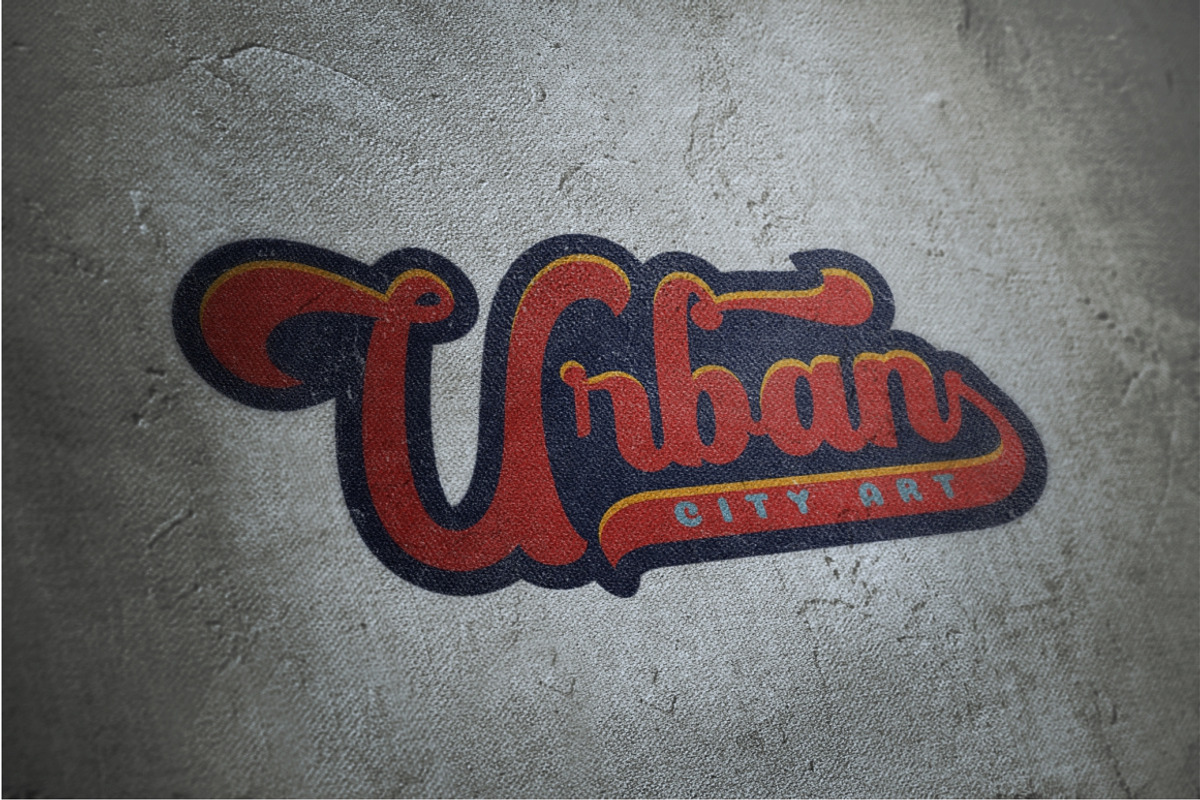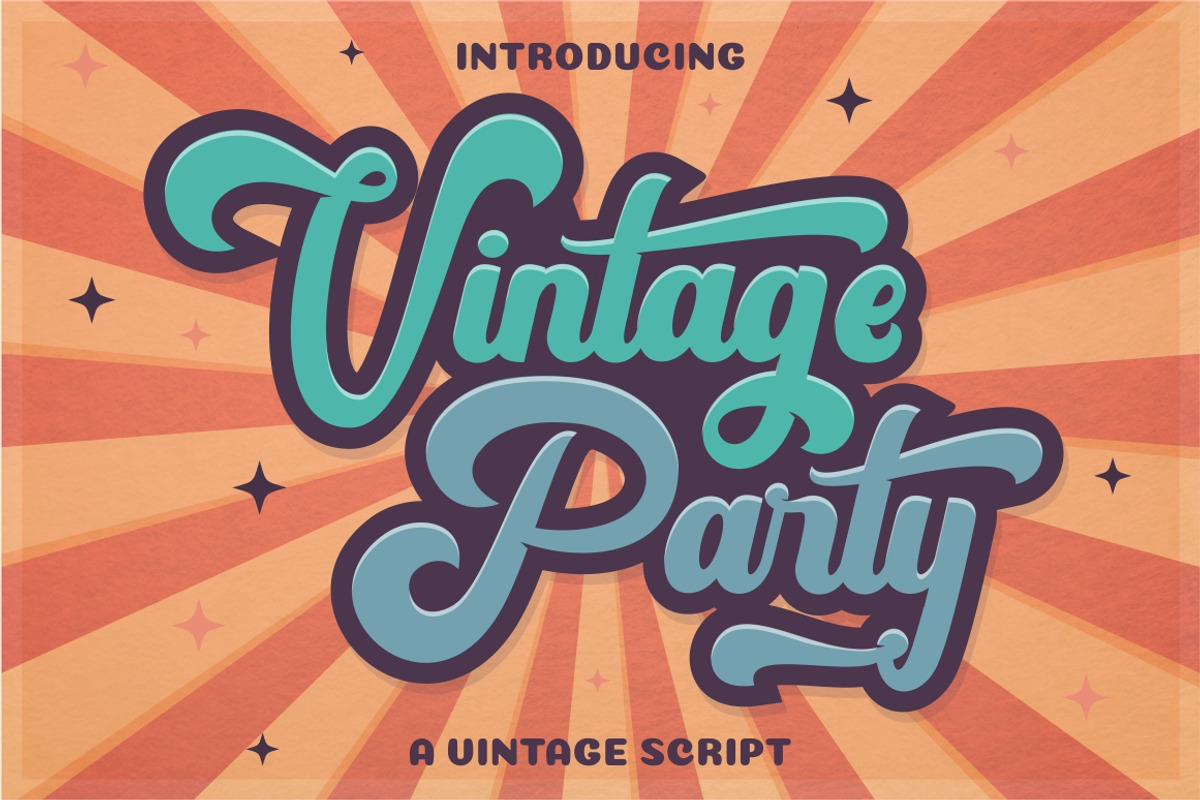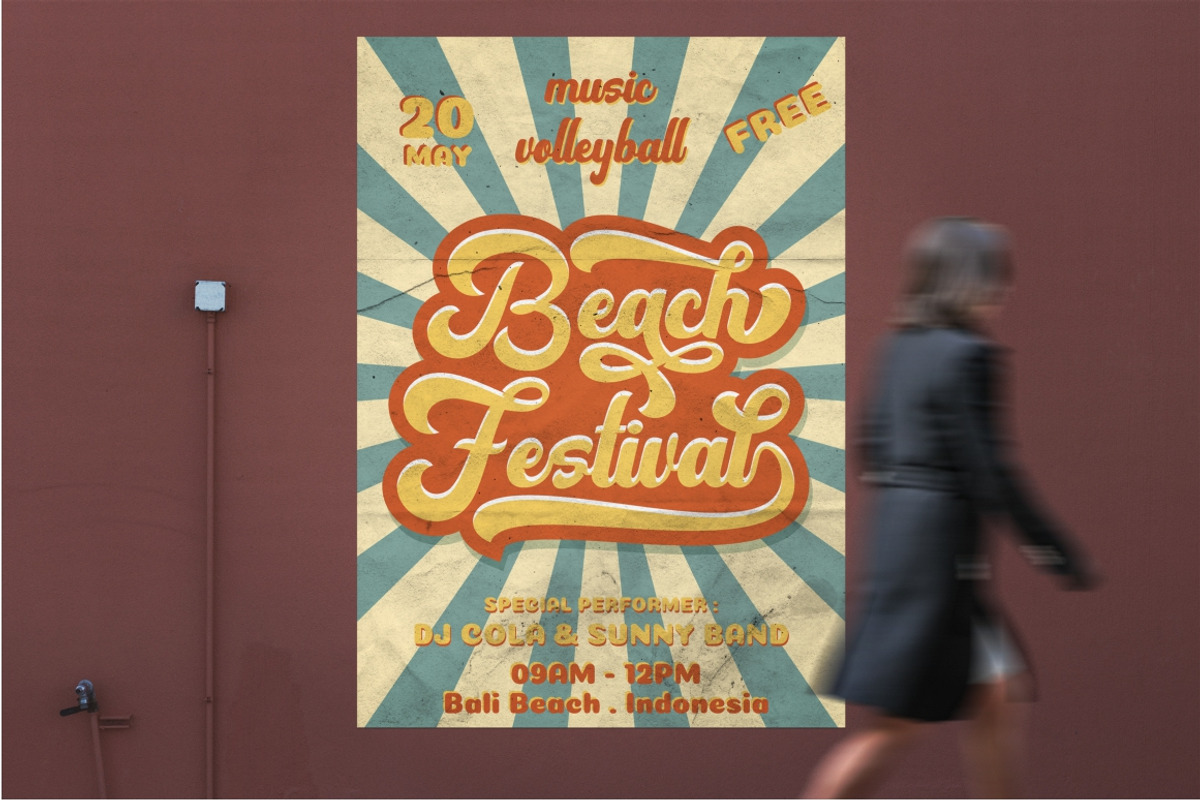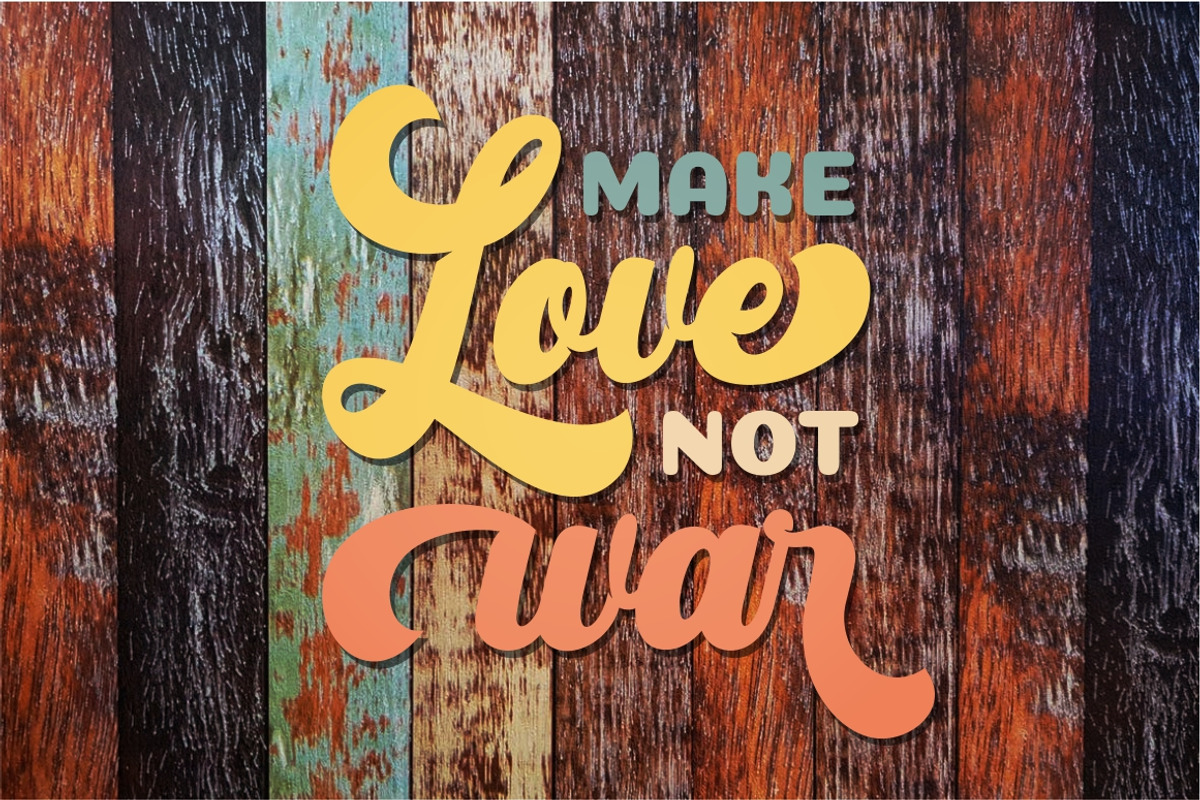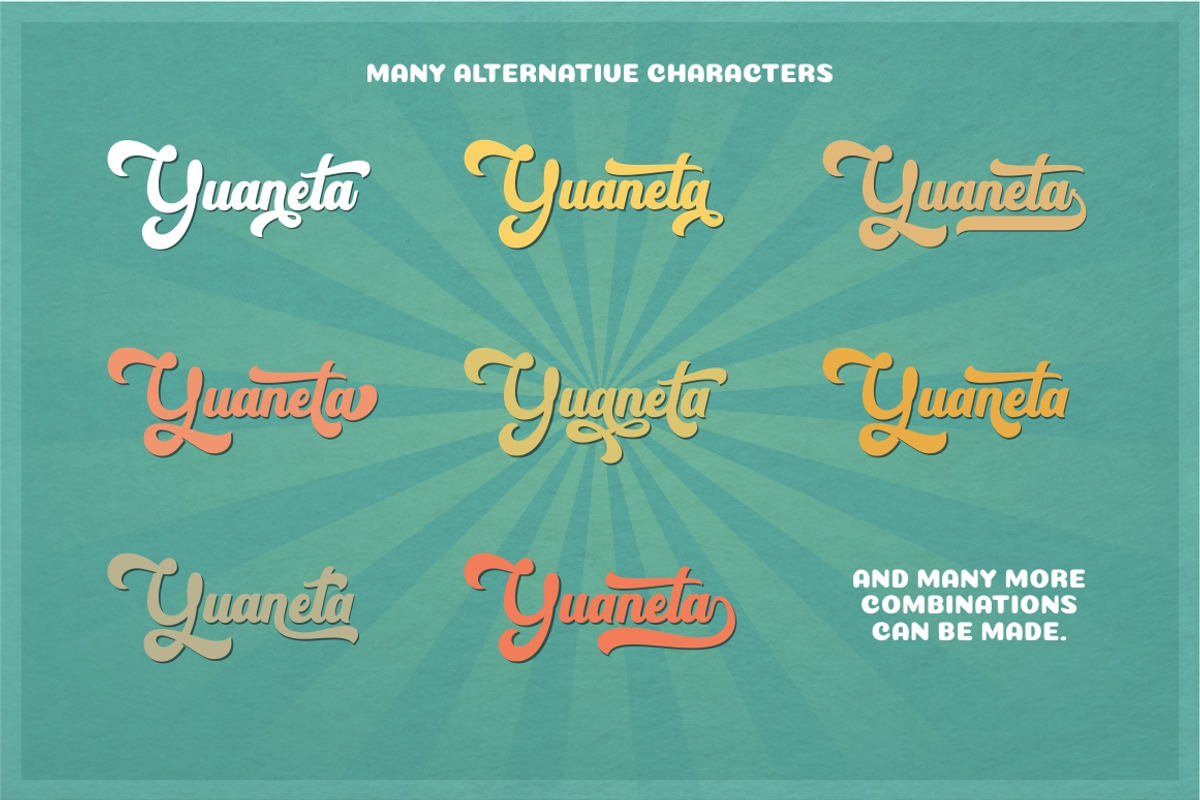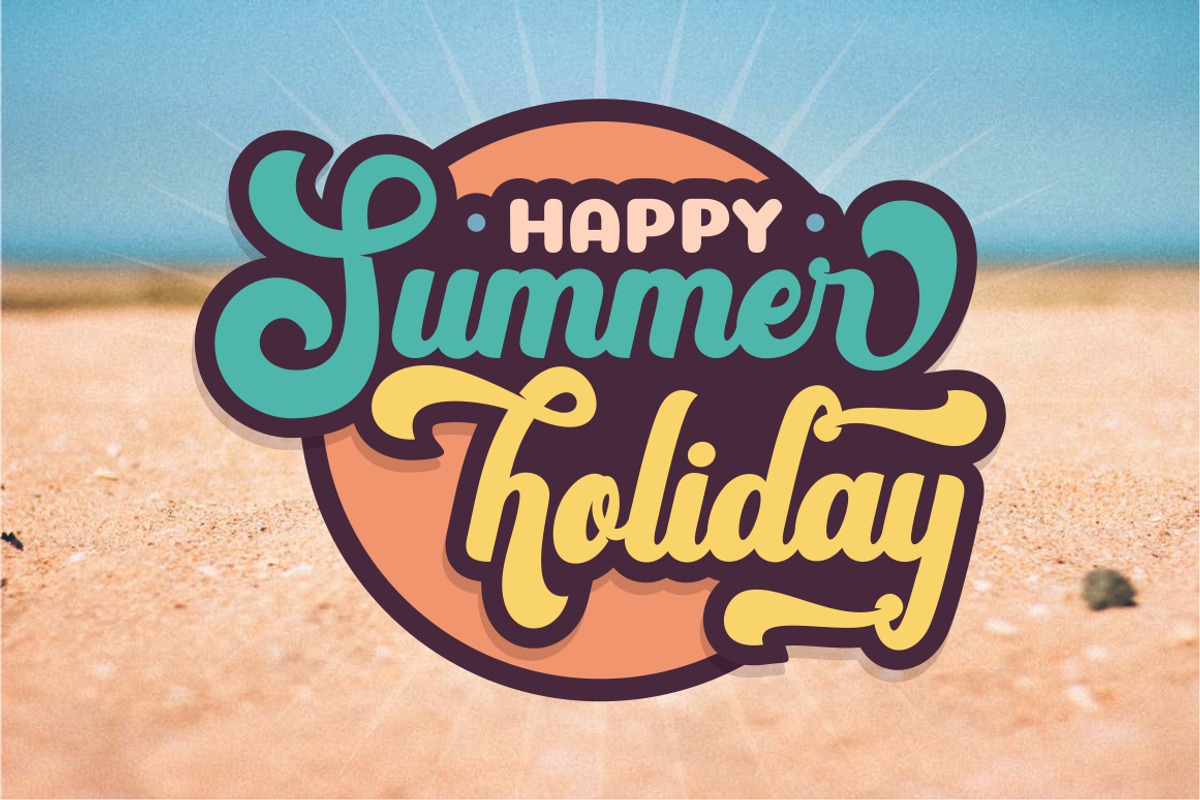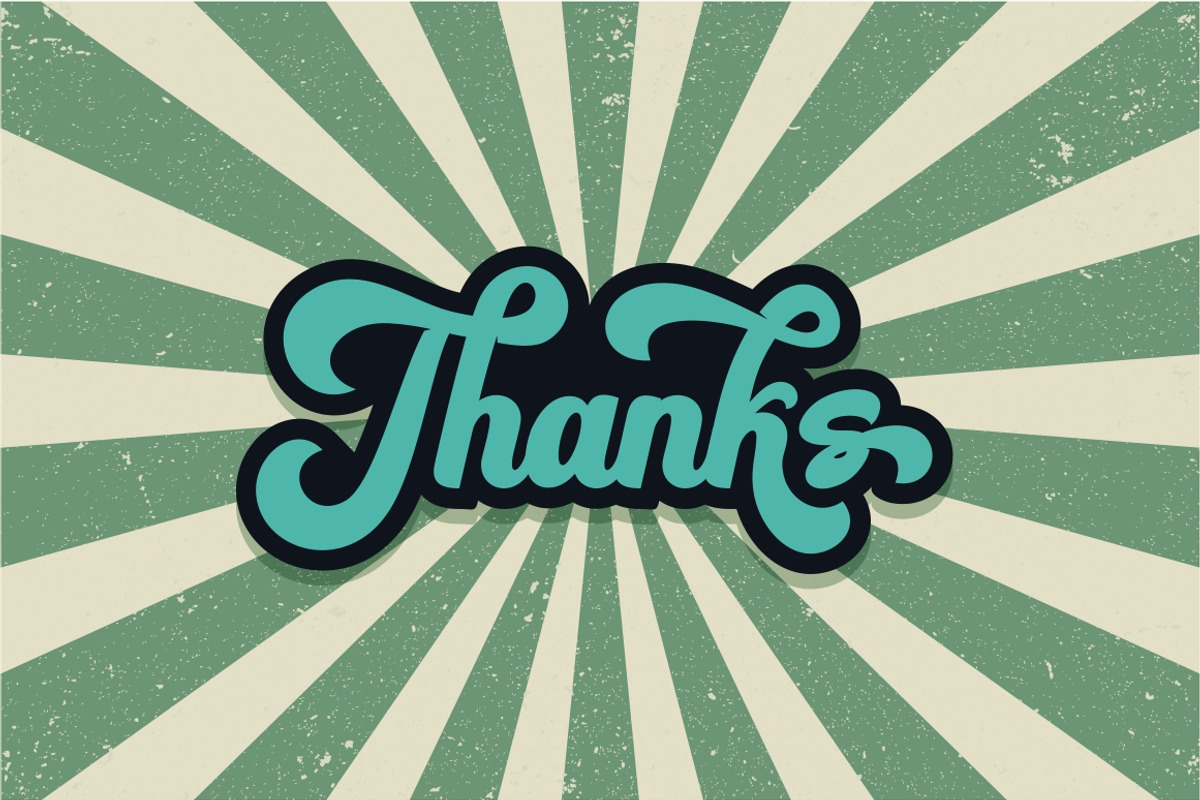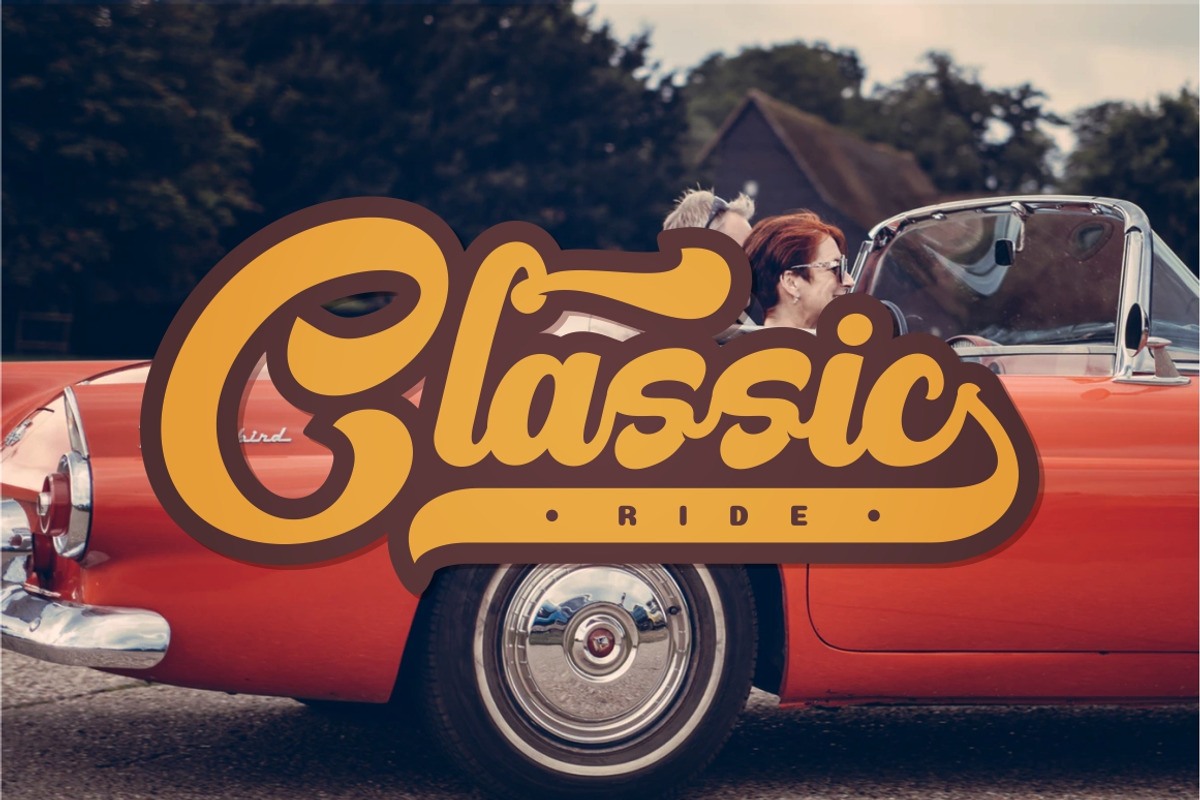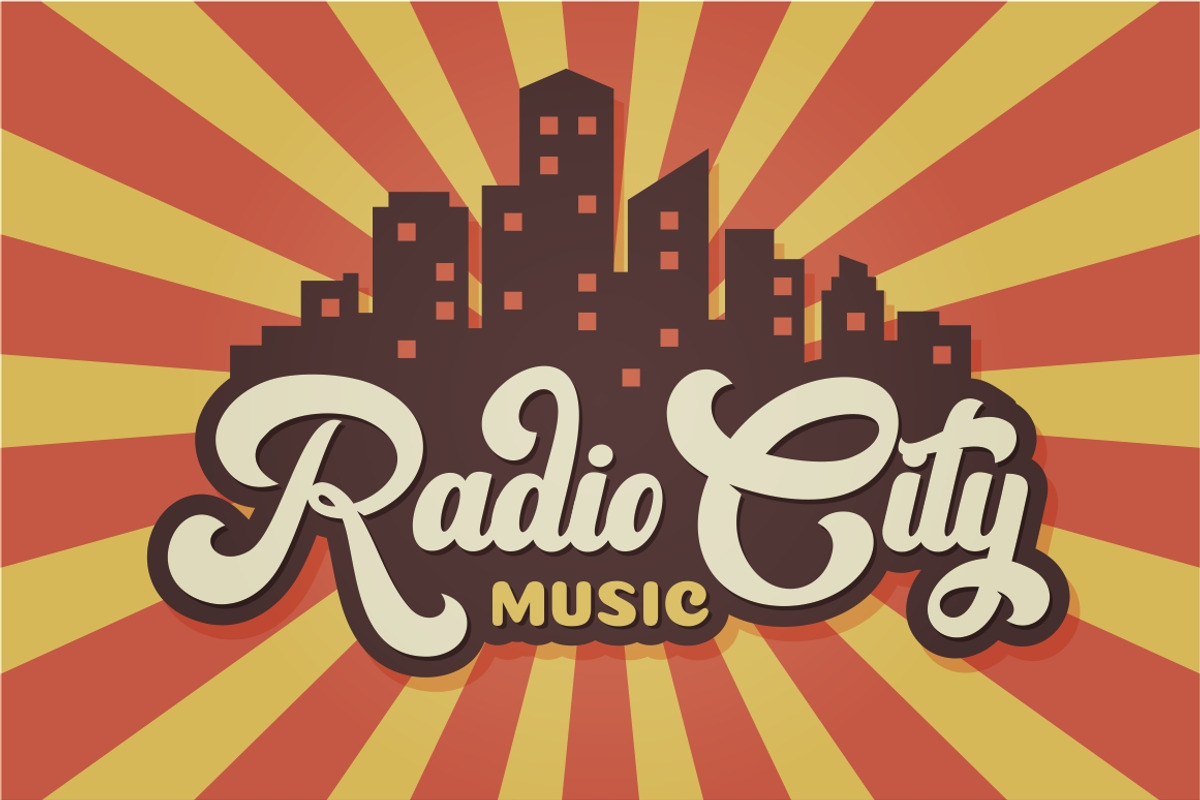
Vintage Party - Bold Retro Font
Vintage Party
Introducing a new vintage bold script "Vintage Party". Inspired from retro typography from 80's combine with bold typography style. Come with open type feature with a lot of alternates and end swash, its help you to make great lettering. Vintage Party best uses for Logotype, heading,cover, poster, logos, quotes, product packaging, header, merchandise, social media & greeting cards and many more. This font is also support multi language. To access the alternate glyphs, you need a program that supports OpenType features such as Adobe Illustrator CS, Adobe Photoshop CC, Adobe Indesign and Corel Draw.
Glyphs cut off elements so they are abrupt slabs instead of the swooshes. Otherwise pretty but wish the glyphs worked.
I love this font! So many alternates and swooshes are included there are so many combinations possible. I'm using it in a design now and I'm excited to see how many variations I can use in future designs. Thank you for this fabulous font!